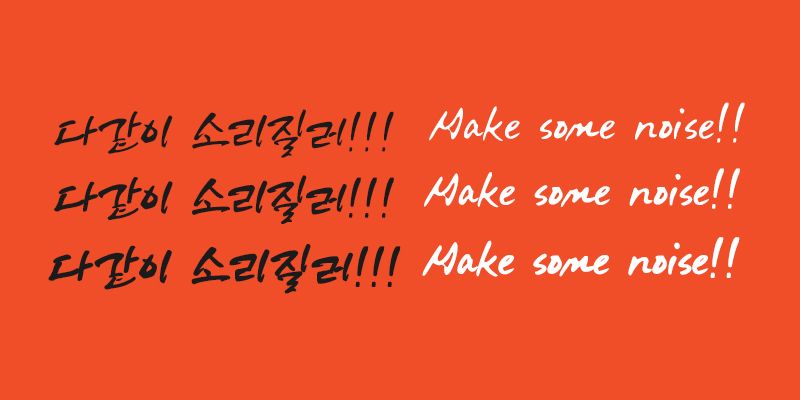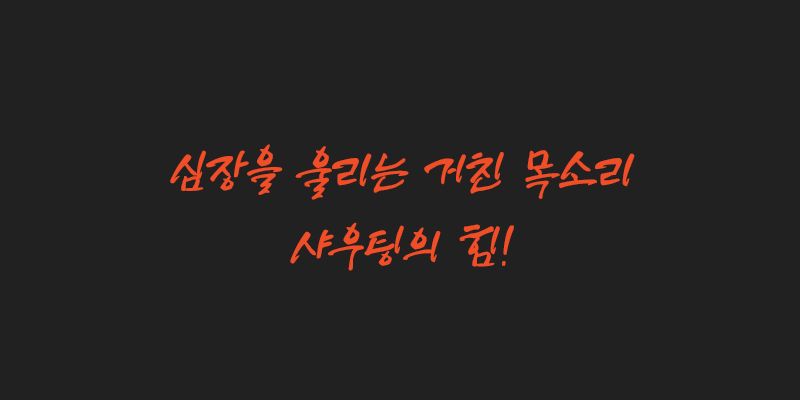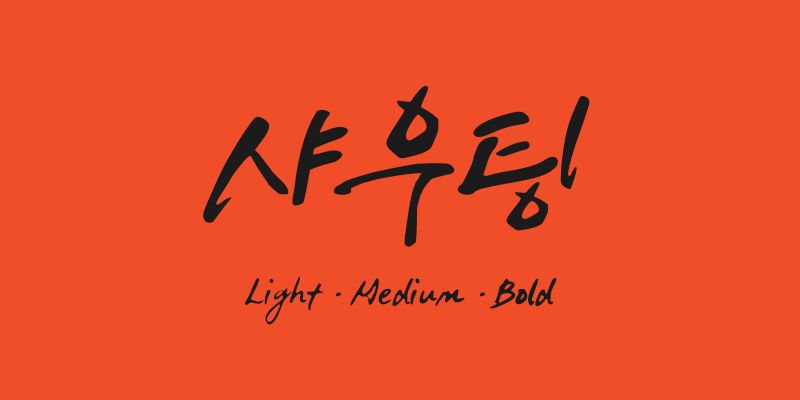
Shouting is an energetic Korean display typeface designed to feel loud, bold, and expressive. With dynamic strokes and a strong handwritten character, it captures the feeling of a voice calling out with confidence. It works well for posters, titles, thumbnails, packaging, and designs that need a powerful visual impact.